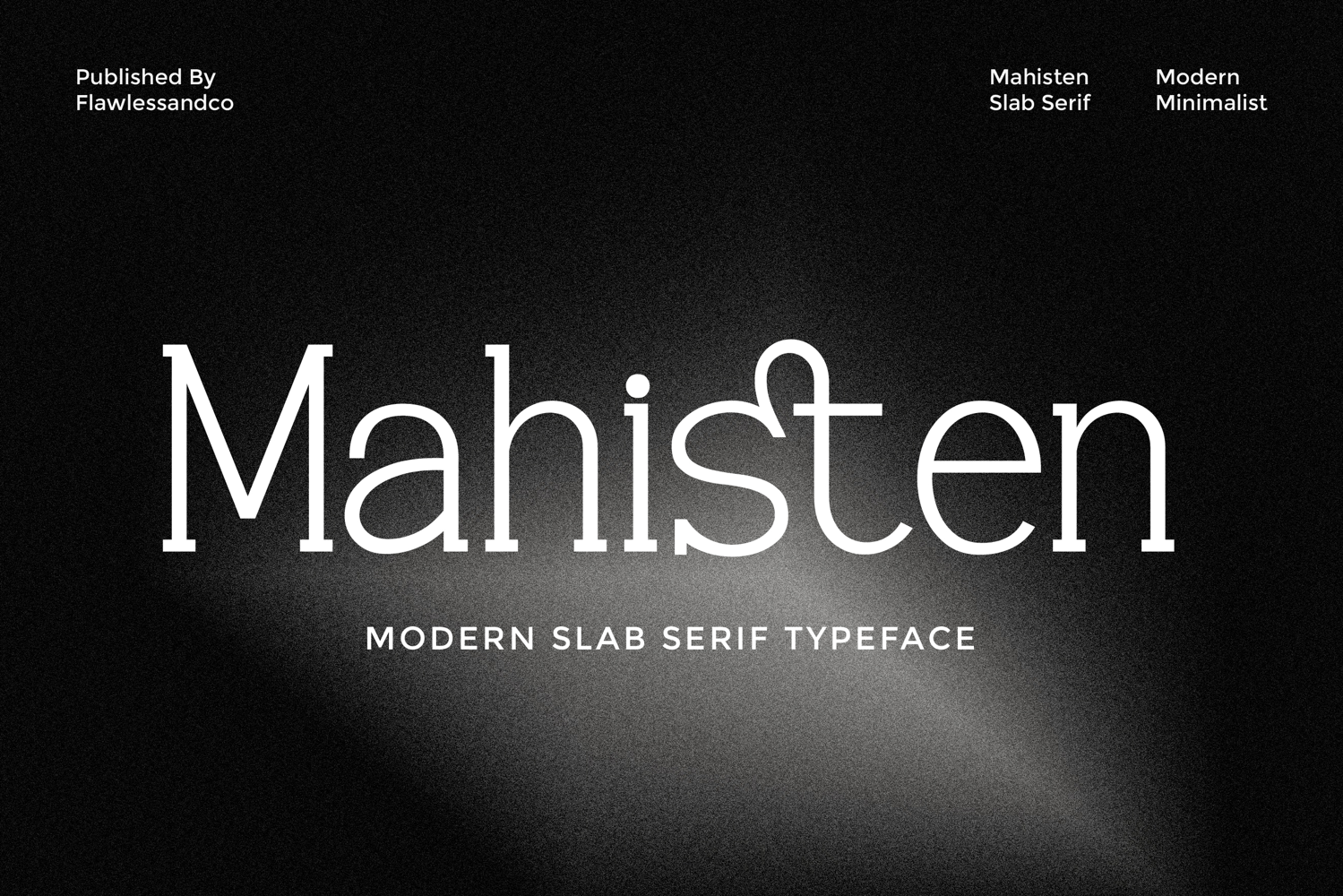
Mahisten
MAHISTEN
Mahisten - Slab Serif Font
Mahisten is a modern slab serif typeface designed with a refined balance between minimalism and sophistication. Its strong geometric structure is paired with subtle curves, creating a timeless and versatile character. Mahisten brings a sense of confidence and clarity to any design, making it ideal for professional and contemporary branding. With its distinctive serif details and clean letterforms, Mahisten works beautifully across both print and digital media — from elegant logos and editorial titles to product packaging and corporate identities.
• Alternates & Ligatures
Who Should Use Mahisten?
Mahisten is perfect for designers and creatives who value modern sophistication and timeless structure. Whether you’re crafting a luxury brand, a minimalist editorial layout, or a professional corporate identity, Mahisten gives your work a polished and confident presence.
This font is ideal for:
• Branding designers seeking a clean yet distinctive serif style.
• Editorial and magazine projects that require elegant readability.
• Agencies and studios focused on high-end visual identities.
• Creatives looking for a modern slab serif with personality and balance.
A Must-Have Font for "Brand and Logo" Creators and Designers
Mahisten stands out as an essential choice for designers who want to craft refined, timeless, and memorable brand identities. With its modern slab serif style, Mahisten combines structure and elegance—making every logo, headline, or wordmark look confident and professional
Why Choose Mahisten for "Brand and Logo" Projects?
• Modern Yet Timeless Look
• Perfect for logos, headlines, and editorial titles that need a clean yet strong character.
• Crafted with precision to maintain clarity across all sizes, from digital media to print materials.
• Mahisten’s subtle details and unique structure ensure your brand stands out with confidence and charm.